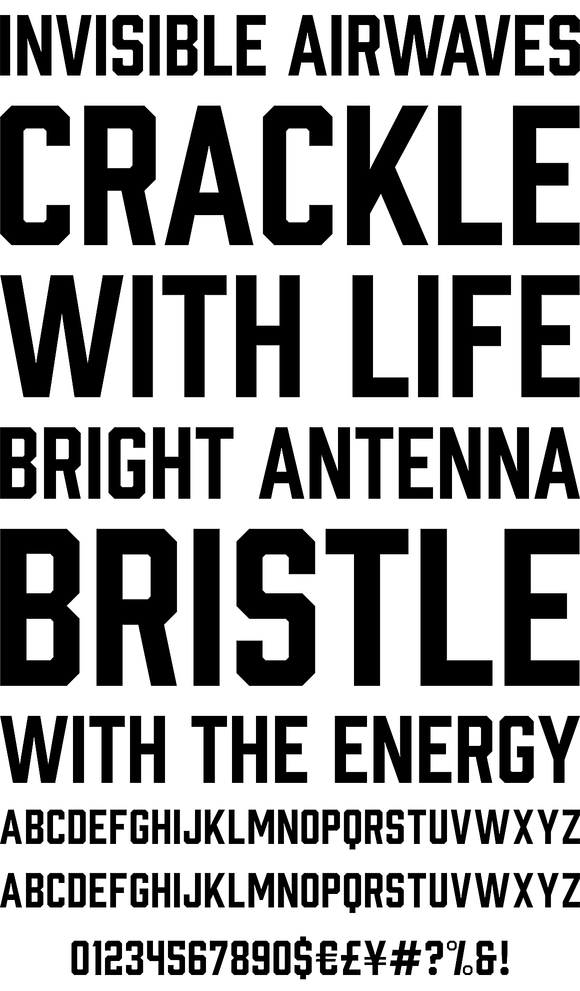
Prohibition Font
The ban on serifs is at hand! Bourbon and Gin thought they could get away with their spirited serifs, but Prohibition has arrived and cut them off. Packed with some new surprises, this vintage sans typeface takes queues from classic war and workforce posters to industrial factories.
Features include: Stylistic Alternates, Discretionary Ligatures, and Multiple Language Support